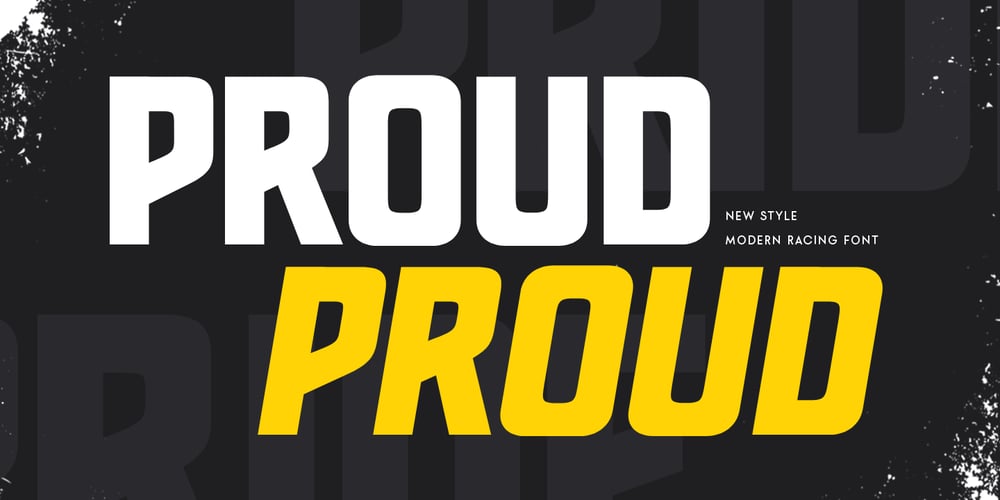
Proud Font Family was designed by Zamroni Hamzah and published by Sensatype Studio. Proud contains 2 styles and family package options. PROUD is a Minimalist Racing Sport Font that created special for Logo, Film Title, Action Poster, Match Design and more stand out typography for sport, futuristic and action. It’s so perfect to add your style and headline overview for sport, technology, actions, and fighting theme. And specially for this font, we crafted for bold action style and modern feels so enjoy to create any project that will show your main idea out.PROUD Minimalist Racing Sport Font ready with: Creative characters prepared to get best results Regular and Italic Version 4 files format already Preview as a inspirations that you can do with PROUD font Ready with Uppercase and Lowercase characters Wish you enjoy our font. ๐